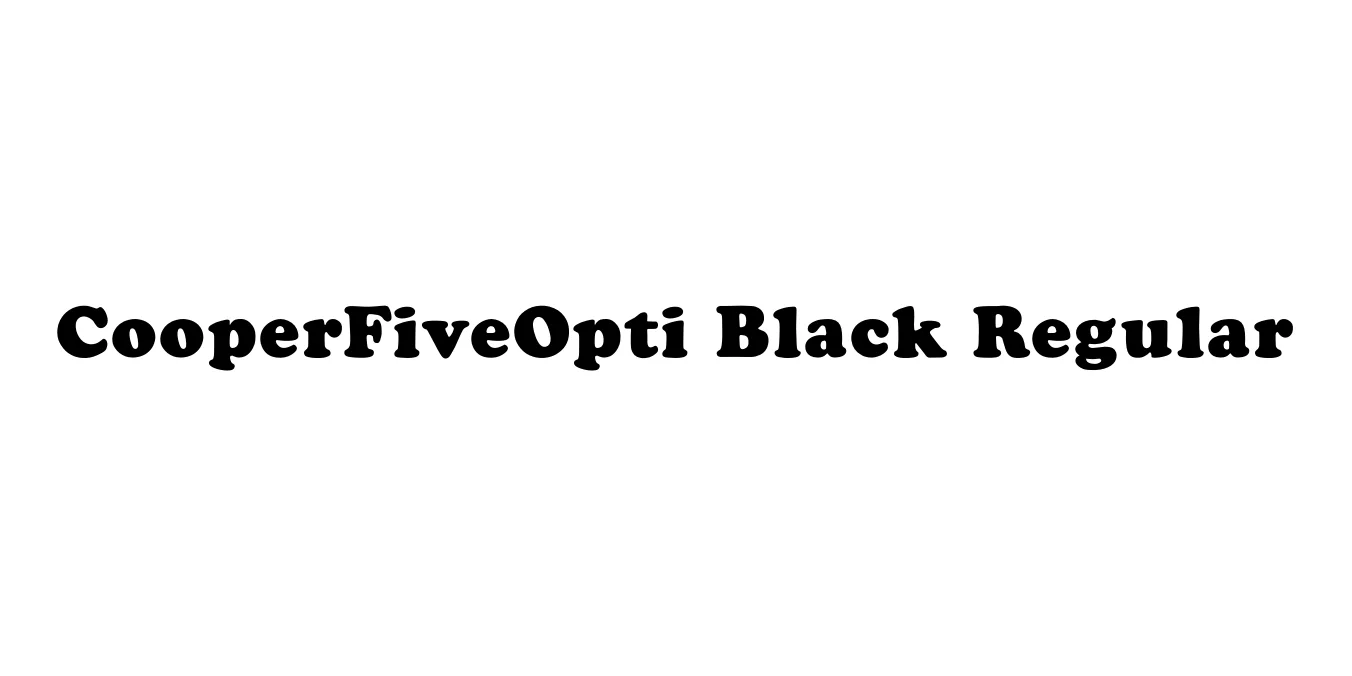
CooperFiveOpti Black Regular
Designed by Oswald Bruce Cooper
| Category | Display Serif |
| Designer | Oswald Bruce Cooper |
| Similar Fonts | Cooper Black, Goudy Heavyface, Windsor, Souvenir |
CooperFiveOpti Black Regular is a prominent revival and digitisation of the iconic Cooper Black typeface, originally designed by Oswald Bruce Cooper in 1922 for the Barnhart Brothers & Spindler type foundry. This specific variation, released as part of the Castcraft OPTIFont collection, maintains the signature extra-bold weight, deeply rounded serifs, and soft, organic forms that made the original a sensation in early 20th-century advertising and a psychedelic staple during the 1960s and 70s.
The typeface is characterized by its extremely heavy strokes and small counters, providing a friendly yet commanding presence on the page. Because of its retro aesthetic and high-impact visual weight, CooperFiveOpti Black Regular excels in digital environments where a sense of nostalgia or bold playfulness is required. It remains a definitive example of the 'fat face' serif style, blending high legibility with a unique, bubbly personality.
CooperFiveOpti Black Regular Best Uses
Perfect for creating friendly, approachable, and bold brand identities.
Highly effective for headlines that need to grab attention from a distance.
Ideal for vintage-style t-shirt graphics and streetwear branding.
Works well for high-impact quotes and eye-catching thumbnails.